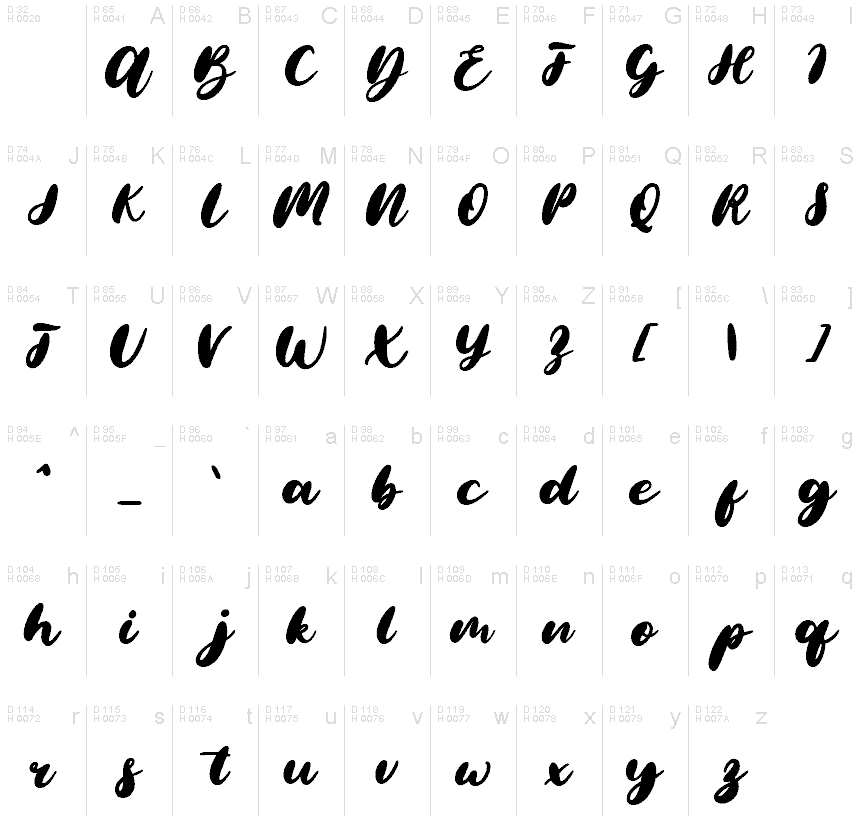
Morning Christmas Brush Font
Morning Christmas Brush font by Sarif Letter is an expressive, bold brush typeface with a casual and modern aesthetic. Its energetic flow and brush-like texture make it stand out in designs that need a touch of creativity and liveliness. This free font is a unique choice for projects seeking an informal yet impactful visual statement.